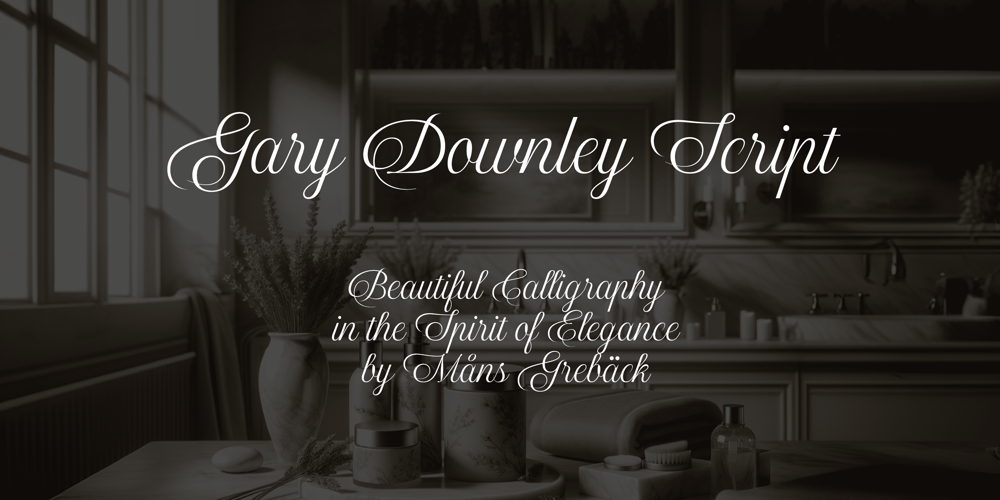
Gary Downley Script
Gary Downley Script Font Family was designed by Måns Grebäck and published by Mans Greback. Gary Downley Script contains 4 styles and family package options. Gary Downley Script is a calligraphy font that captures the elegance of fine design. Gary Downley Script is a formal script typeface that adds a touch of beauty and femininity to your text. Its swirly, lovely strokes create an inviting and cute appearance, making it perfect for invitations and formal occasions. The graceful curves and delicate lines give it a beautiful and charming feel, ideal for any setting that requires a sophisticated and sweet touch. The font is built with advanced OpenType functionality and guaranteed top-notch quality, containing stylistic and contextual alternates, ligatures and more automatic and manual features; all to give you full control and customizability.It has extensive lingual support, covering all Latin-based languages, from North Europa to South Africa, from America to South-East Asia. It contains all characters and symbols you’ll ever need, including all punctuation and numbers.Gary Downley Script is designed by Mans Greback to bring a sense of formal elegance and cuteness to your projects, with its swirly, feminine, and lovely style.